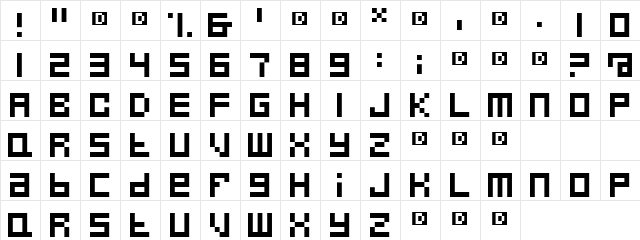
FiveO Regular
Design Context for FiveO Typeface
FiveO takes a measured approach to typography — its balanced proportions and neutral character make it a reliable workhorse for both digital and print work.
Pro Tip: Use FiveO in both headline and body roles to test its range before committing to a single application.